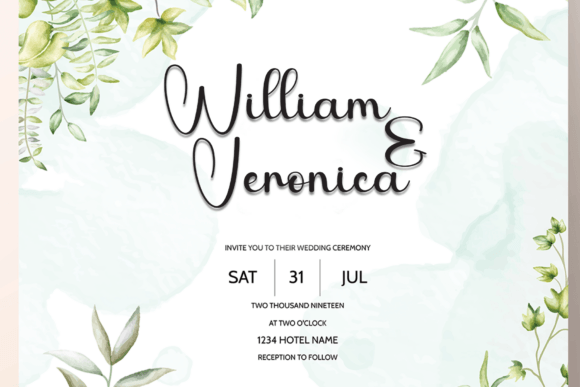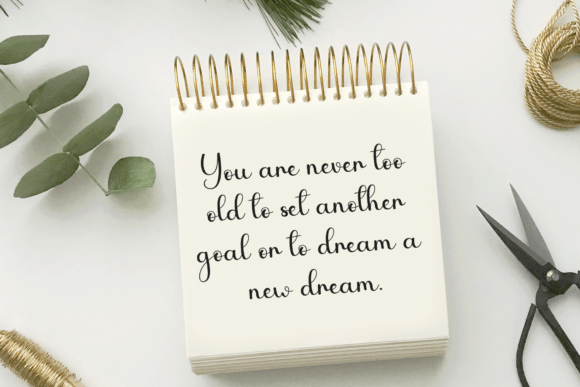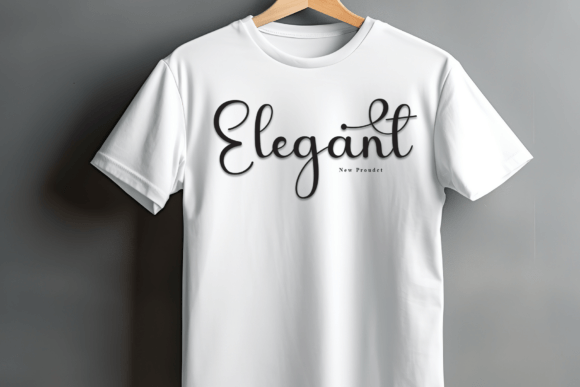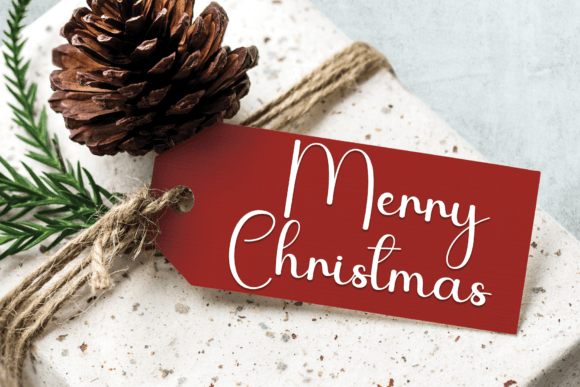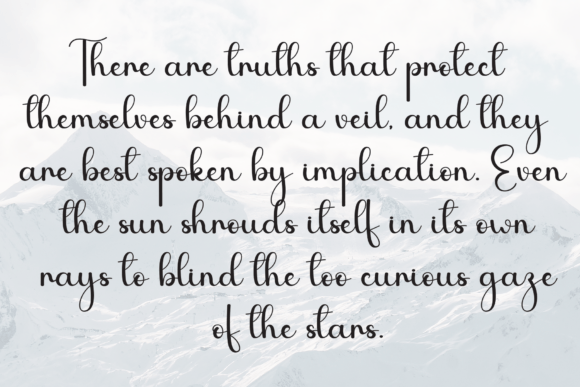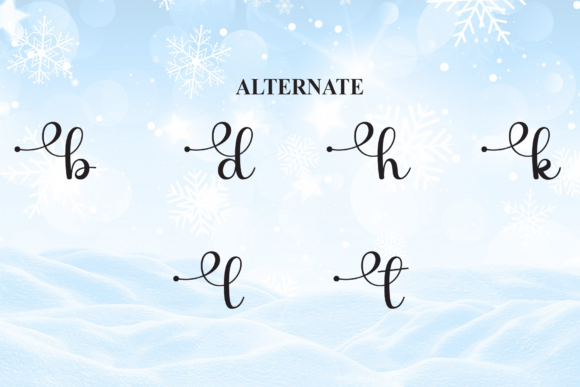
Introduction to Slush Font
Introducing a delightful and welcoming handwritten display font, inimitably designed to enhance your creative journey.
This captivating typeface, with its playful charm, is perfect for sprucing up wedding invites, greeting cards, or any design that craves a dash of excitement Its affable elegance infuses an endearing personality to your creation, making it truly stand out.